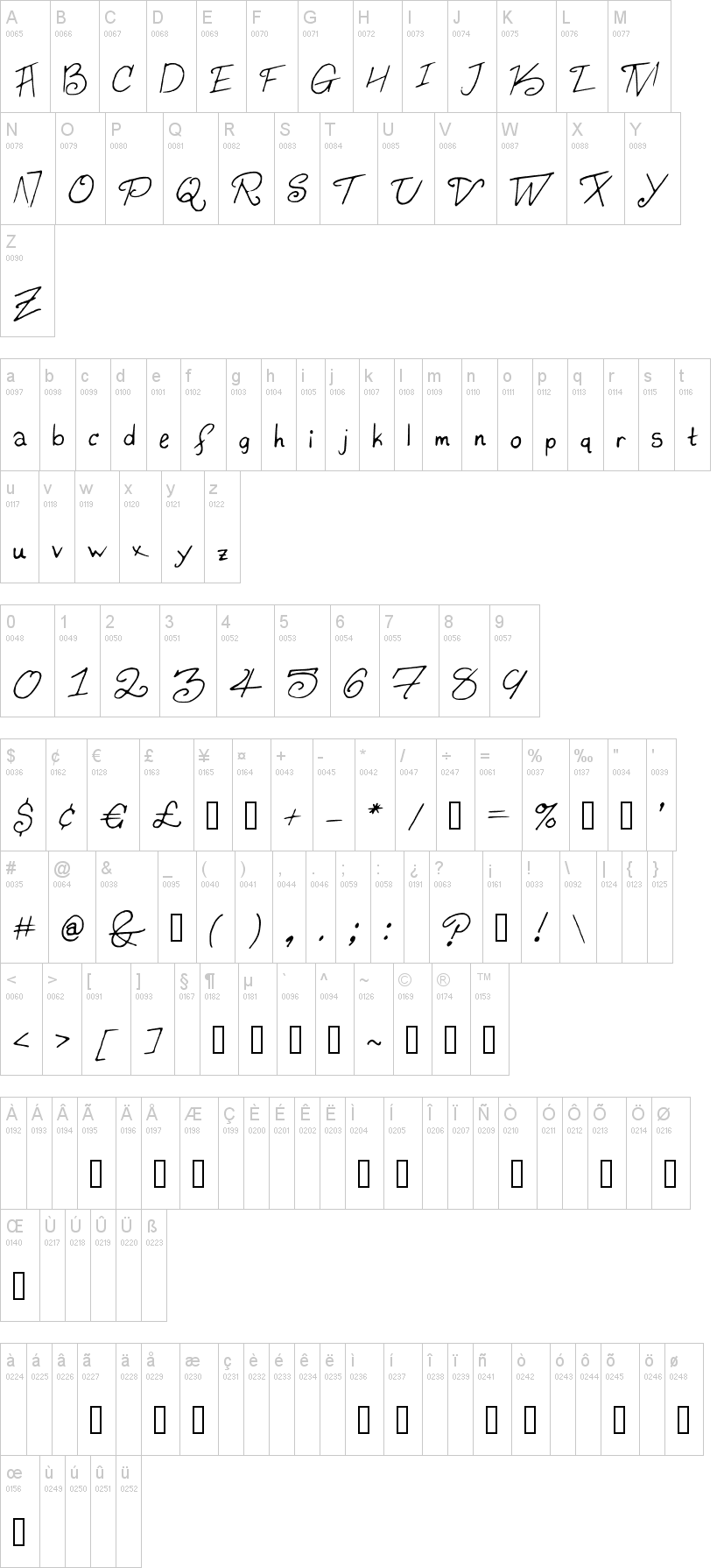
Note of the authorUsed http://www.myscriptfont.com/ to make this fancy font from my handwriting. Hopefully in the future I can make some real fonts! Peace!